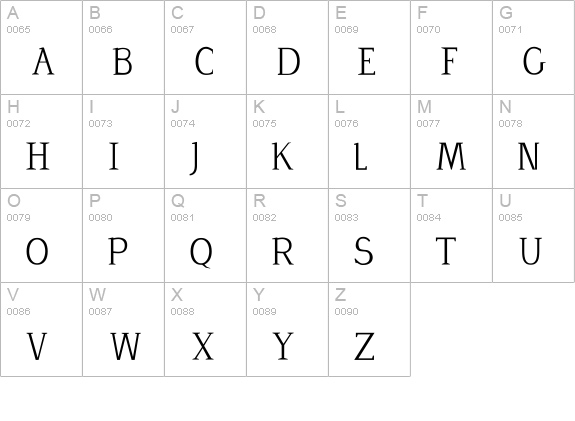
Desmond Font Details
Desmond font is a modern and elegant typeface that exudes sophistication and charm. Its sleek lines and balanced proportions make it the perfect choice for a wide range of design projects, from branding to editorial layouts. With its timeless appeal and versatility, Desmond font is sure to elevate any design to the next level. The best part? Desmond font is available for free download at FontsMarket.com. This means you can easily access this stunning typeface without any cost, making it a valuable addition to your font collection. Whether you're a designer looking to enhance your projects or a creative enthusiast exploring new typography options, Desmond font is a must-have resource that offers both style and accessibility. Download Desmond font today and bring your designs to life with its effortless beauty and sophistication.